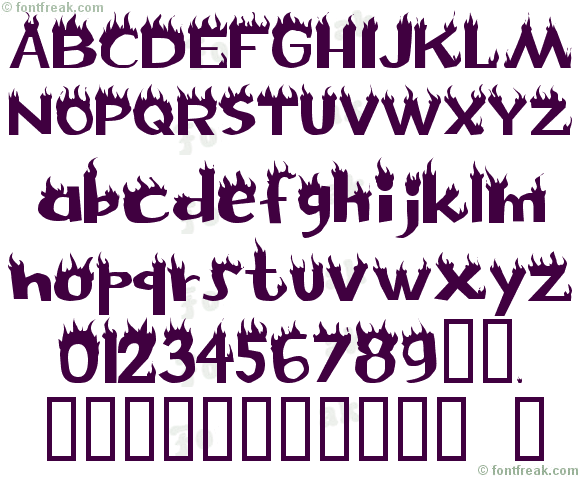
Flame
Introducing the Flame font by Jenny Barck, a stunning display typeface that captures attention and ignites creativity. Released in 1997 as freeware, this font is perfect for those looking to add a bold and dynamic touch to their projects. The Flame font features a unique style characterized by its decorative, flame-like forms that create an energetic visual impact. The stroke weight is varied, with sharp contrasts that emphasize the fiery essence of the typeface. The spacing is carefully crafted, allowing for readability while maintaining an engaging and expressive design.
This font is highly versatile, making it ideal for a variety of use cases. It shines in wedding invitations, where its playful yet elegant appearance can set the tone for a romantic celebration. Movie posters benefit from its dramatic flair, drawing viewers in with its striking visuals. Restaurant menus can utilize the Flame font to evoke a lively atmosphere, particularly in establishments specializing in spicy or exotic cuisine. Additionally, it serves as an excellent choice for advertising materials and social media graphics, helping brands stand out in a crowded digital landscape.
What truly sets the Flame font apart is its ability to convey a sense of movement and energy. The intricate details and unique design elements invite viewers to engage, making it a fantastic addition to any creative toolkit. For those seeking a Flame font free download, this typeface offers not just aesthetic appeal but also the freedom to innovate and inspire.